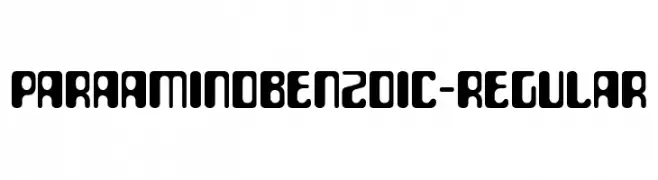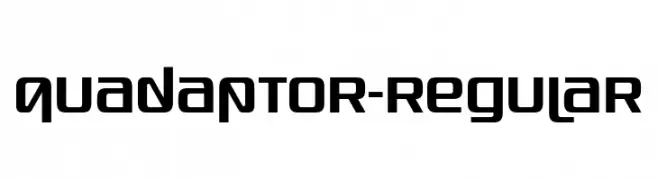
• SybilGreen-Regular
A playful and whimsical font with bold, geometric shapes and unique curves.
• Huxtable-Regular
A bold, dynamic font with a slight slant and moderate stroke contrast.
• CrystalRadioKit-Regular
A bold, geometric font with a modern and striking design.
• Electroharmonix-Regular
A bold, geometric font with a modern, tech-inspired design.
• Quadaptor-Regular
A modern, geometric font with a futuristic and technical style.
• ParaAminobenzoic-Regular
A bold, rounded font with a modern and playful style.
• FakeReceipt-Regular
A dot-matrix style font with a retro, pixelated appearance.
• Anklepants-Regular
A bold, geometric font with a modern and edgy style.
• Droid-Regular
A tall, narrow font with a modern, professional appearance.
• VelvendaCooler-Regular
A bold, condensed font with high contrast and geometric design.